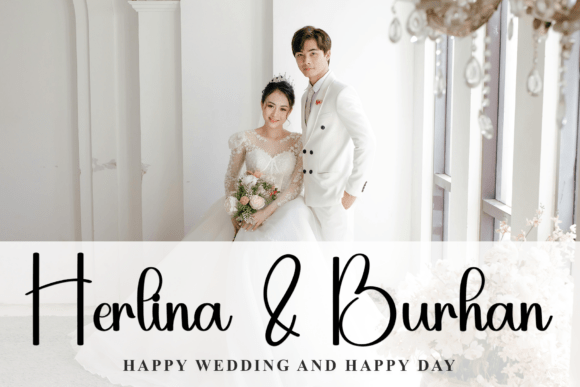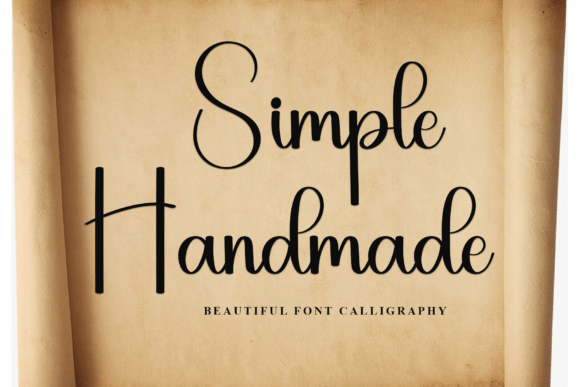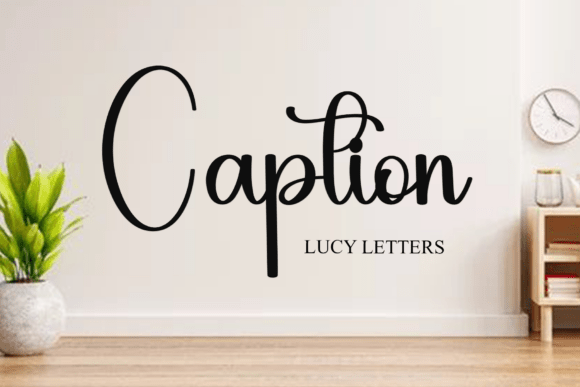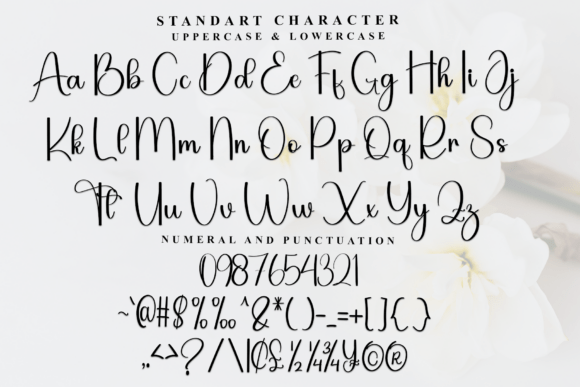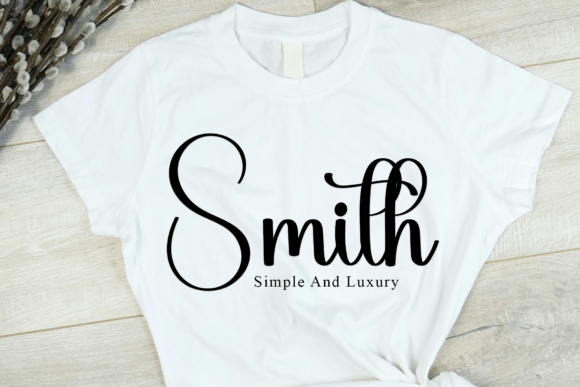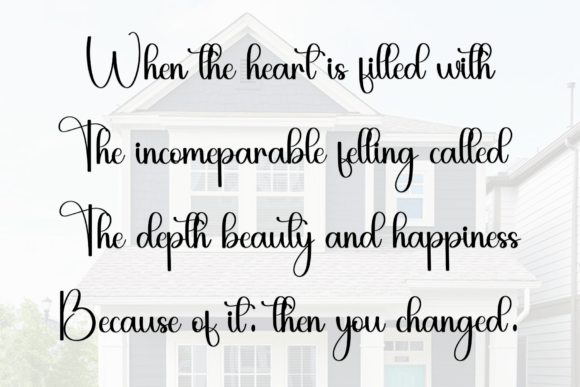
Bridger Font: Elevate Your Designs with a Unique and Versatile Typeface
In the world of typography, a font can make or break a design project. That’s why designers and crafters are always on the lookout for unique and eye-catching typefaces that can elevate their work. One such font that has gained popularity in recent times is the Bridger Font. Designed with a soft, unique touch, Bridger is a beautiful font that can add a special character to any design project.
The Distinctive Features of Bridger Font
Bridger Font is a handcrafted typeface that boasts distinctive strokes, giving it a special character that sets it apart from other fonts. Its unique design makes it meaningful and versatile, perfect for a wide range of design projects, crafts, and other creative works. With a variety of characters, Bridger Font is an excellent choice for designers and crafters looking to add a personal touch to their work.
Bridger Font is perfect for a wide range of design projects, from branding and advertising to packaging and digital art. Its unique design makes it an excellent choice for crafters, who can use it to create handmade cards, scrapbook pages, and other paper crafts. With Bridger Font, designers and crafters can create stunning visual content that appeals to a wide range of audiences across different artistic and creative fields.
Enhance Your Designs with Bridger Font
With Bridger Font, designers and crafters can elevate their designs and make them more appealing to their target audience. Its soft, unique touch adds a personal touch to any design project, making it perfect for creating emotional connections with the audience. Whether you’re designing a logo, creating a social media graphic, or crafting a handmade gift, Bridger Font is an excellent choice.
Key Features of Bridger Font
- Unique and eye-catching design
- Soft, handcrafted touch
- Distinctive strokes for a special character
- Meaningful and versatile
- Perfect for design projects, crafts, and other creative works
- Variety of characters for added versatility
In conclusion, Bridger Font is a beautiful and versatile typeface that can elevate any design project. Its unique design, compatibility with various applications, and perfect blend of style and functionality make it an excellent choice for designers and crafters. Whether you’re working on a graphic design project, crafting a handmade card, or creating digital art, Bridger Font is an excellent addition to your design toolkit.